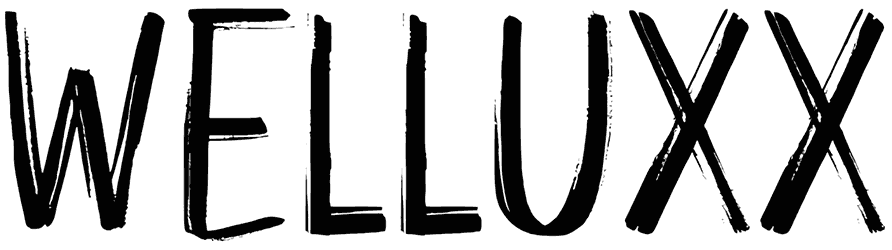
Great Brush Font
The faint lines and traces left in Great Brush can add beauty and mystery to your designs. While adding a personal touch to your artwork, this script font also effectively implements scary projects.
Even in the absence of small letters, it’s suitable for inspiring designers with many ideas. Imitating this brush font from authentic manuscripts gives the audience the feeling that it was written precisely by a person. So, it doubles the effectiveness of advertisements and the attractiveness of book covers.